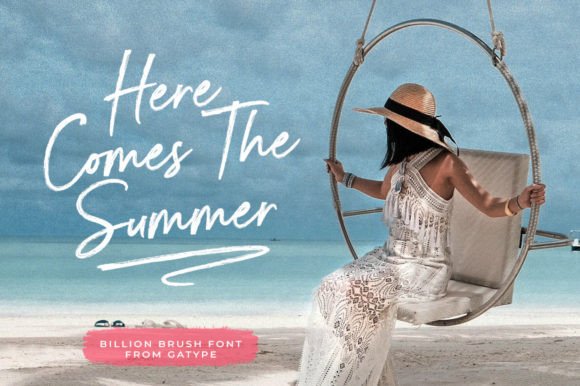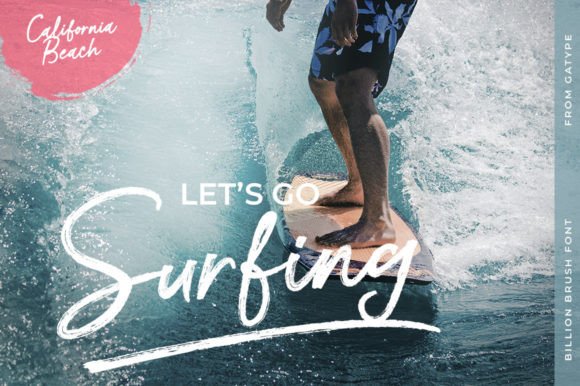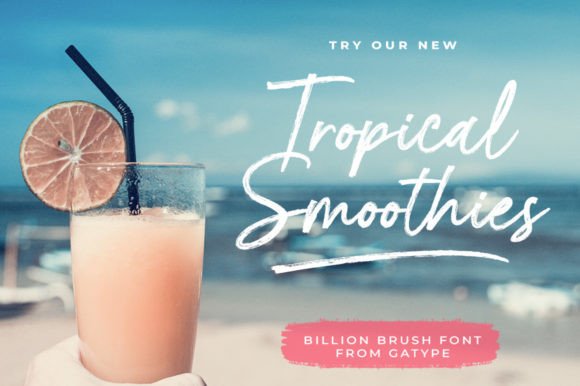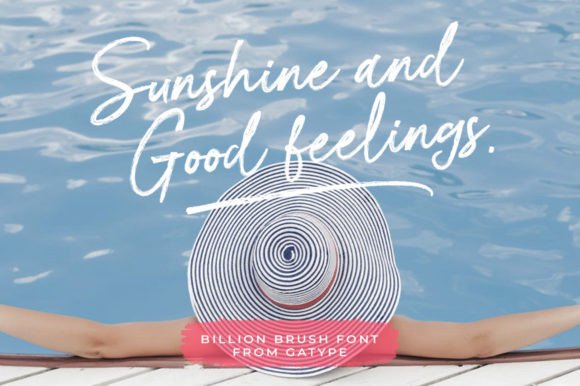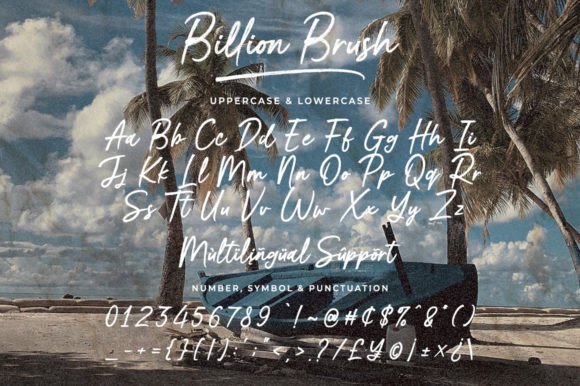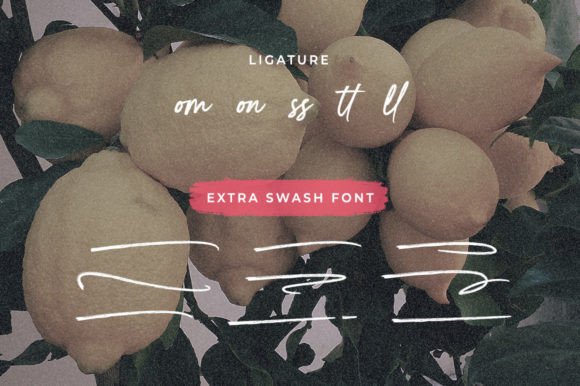
The Joy of Handwritten Fonts: Introducing Billion Brush Font
Have you ever sat down with a pencil and paper, feeling the rush of creativity as you let your thoughts flow onto the page in a messy, beautiful scrawl? That’s the magic of handwritten fonts, and it’s exactly what Billion Brush Font is all about. This charming font captures the essence of handwritten notes, with a rough texture that adds a touch of personality to any design.
Whether you’re a designer, artist, or simply someone who loves to add a personal touch to your projects, Billion Brush Font is a valuable addition to your toolkit. Its unique, dry brush style is perfect for creating eye-catching headings, adding a touch of whimsy to your branding, or simply making your text stand out. With its PUA encoding, you’ll have access to all the glyphs and strokes you need to bring your creative vision to life.
Billion Brush Font Key Features
- Unique Characteristics: Hand-painted brush font with a mix of traditional and modern styles, ideal for creative and artistic designs.
- Font Styles: Regular, Bold, Italic, Bold Italic
Billion Brush Font Review
I’ve had the chance to play around with the Billion Brush Font, and here are my honest thoughts.
- Unique Hand-Drawn Feel: The Billion Brush Font has a charming, hand-drawn quality that can add a touch of personality to your designs.
- Good for Titles and Headings: The font is quite legible and works well for titles, headings, and other display text.
- Customization Options: The font comes with a range of customization options, including font sizes, line heights, and letter spacing.
- Not Ideal for Body Text: While the font is great for titles and headings, it can be a bit too ornate for body text, making it difficult to read.
- Limited Character Set: The font has a limited character set, which may not include all the characters you need for your project.
- May Not Be Suitable for Small Text: The font can become difficult to read when used in small sizes, so it’s best to use it in larger sizes.
The Billion Brush Font is a great choice for designers looking to add a touch of personality to their titles and headings. While it has some limitations, it’s a unique and charming font that can add a lot of character to your designs.
Getting the Most Out of the Billion Brush Font
To get the most out of the Billion Brush Font, consider the following tips:
- Combine the Billion Brush Font with other fonts for a unique and creative look.
- Use the font for titles, headings, or emphasis to draw attention to important text elements.
The Billion Brush Font is ideal for:
- Designing creative and eye-catching titles and headings.
- Adding a unique touch to
Alternatives to Billion Brush Font
Great Vibes is a beautiful, handwritten font perfect for creating a friendly and approachable atmosphere. It’s ideal for use in headings, titles, and short paragraphs where a touch of elegance is desired.
Compared to Billion Brush Font, Great Vibes has a more refined and sophisticated look, making it suitable for a wider range of applications, from invitations to branding materials.
Carolyna Pro is a modern, elegant script font designed for use in a variety of contexts, from fashion and beauty to lifestyle and wellness. It’s perfect for creating a sense of luxury and sophistication.
Unlike Billion Brush Font, Carolyna Pro has a more polished and refined look, making it suitable for high-end branding and advertising materials.
Playfair Display is an elegant, high-end script font perfect for creating a sense of luxury and sophistication. It’s ideal for use in headings, titles, and short paragraphs where a touch of elegance is desired.
Compared to Billion Brush Font, Playfair Display has a more refined and sophisticated look, making it suitable for high-end branding and advertising materials.